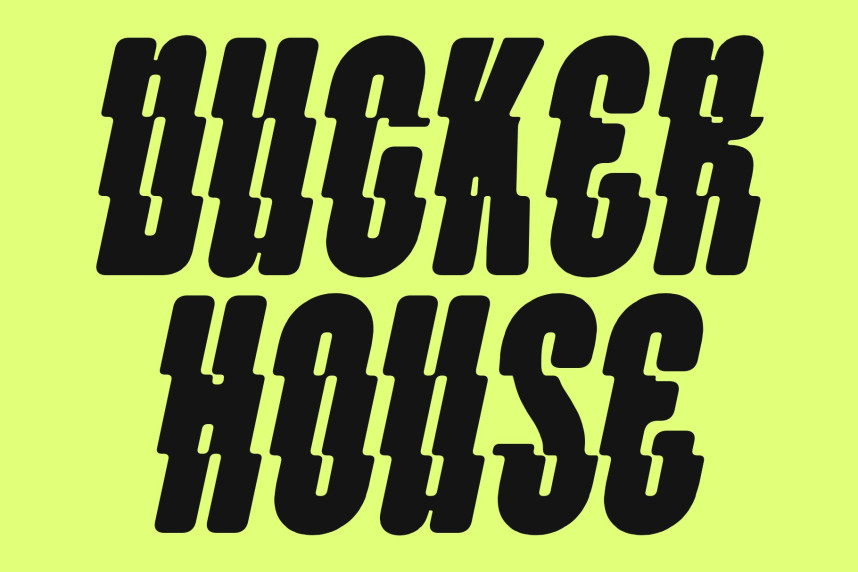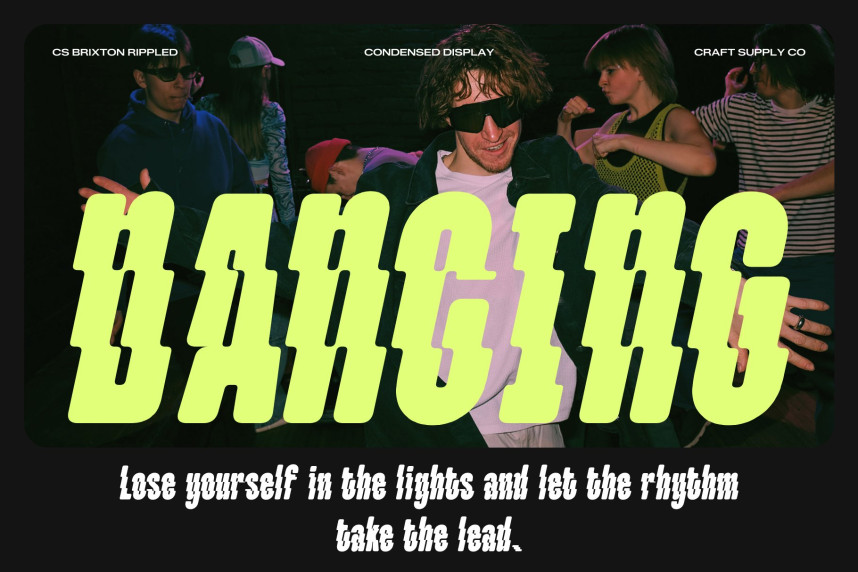
CS Brixton Rippled Font
CS Brixton Rippled Font – Bold Modern Sans Serif Font: Where Strong Impact Meets Liquid Wave Energy
Powerful Contemporary Forms with Dynamic Presence
This is a bold modern sans serif display font designed to create a strong and commanding visual statement. Its solid geometric structure and confident proportions generate an energetic modern appearance filled with impact, movement, and expressive personality. Every letter feels bold and immersive, making the font perfect for attention-grabbing headlines and vibrant creative compositions.